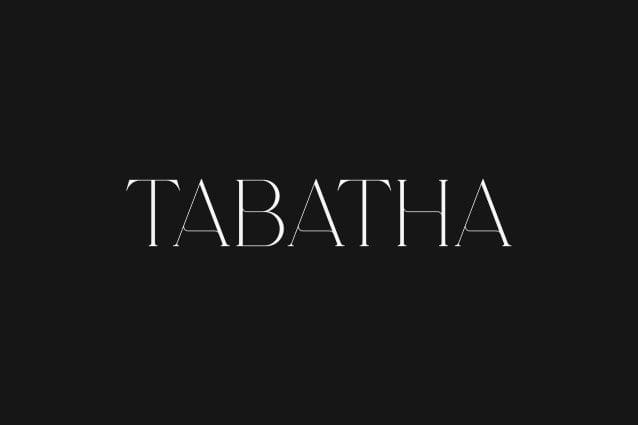
Tabatha Serif Font
Tabatha Serif Font is an elegant and versatile serif font that will make your typography truly unique! It will enchant every logo, branding, headline, or plain text!